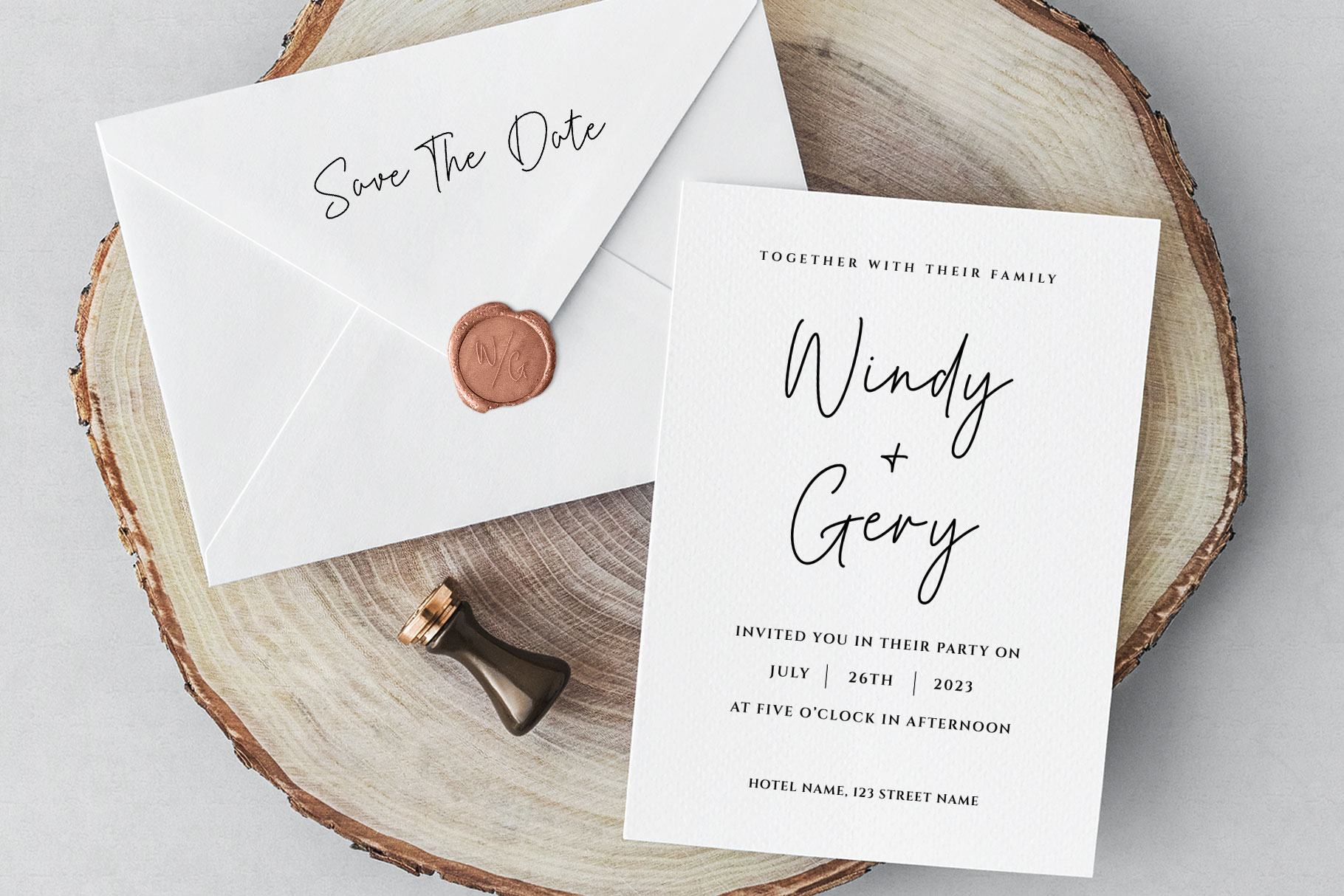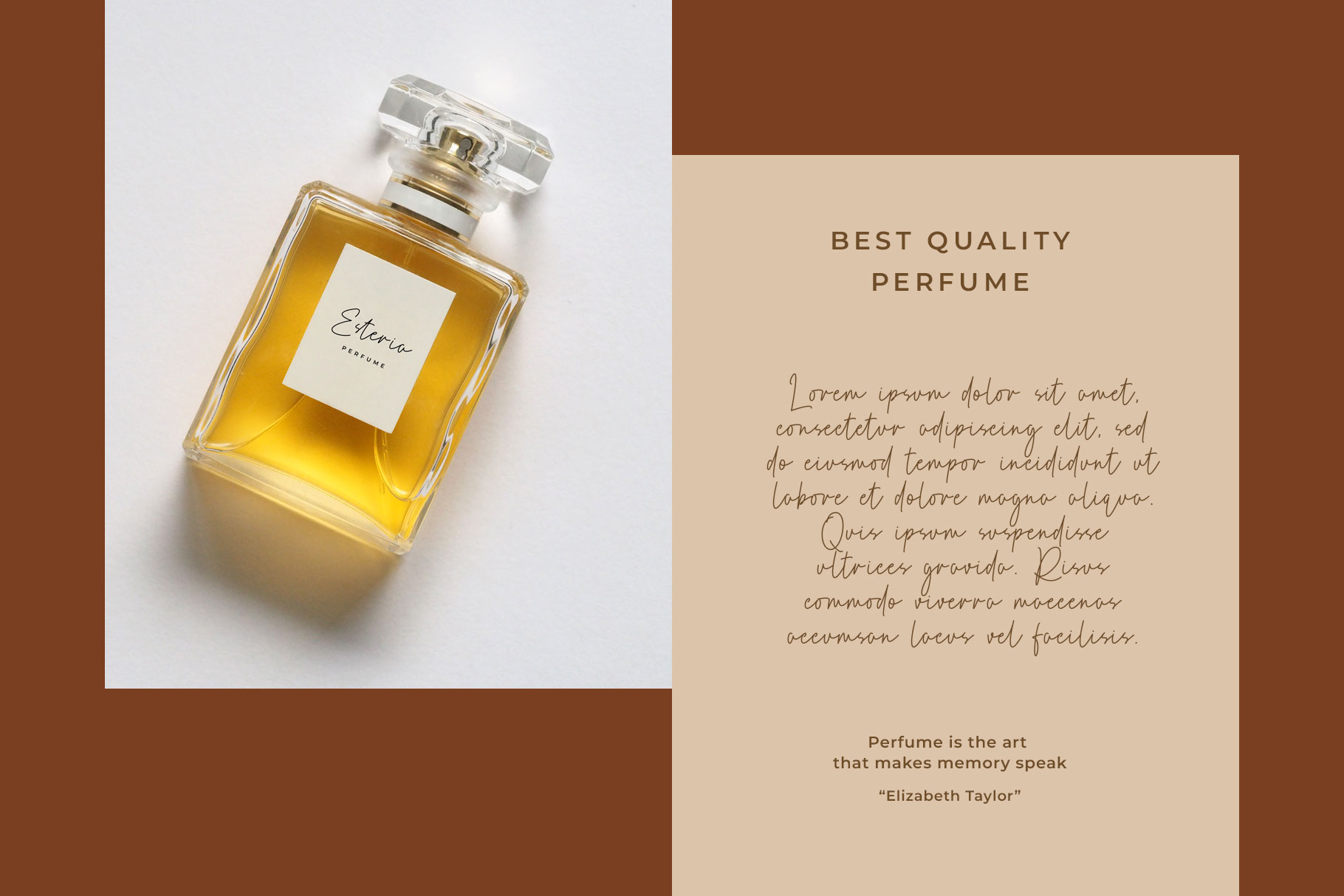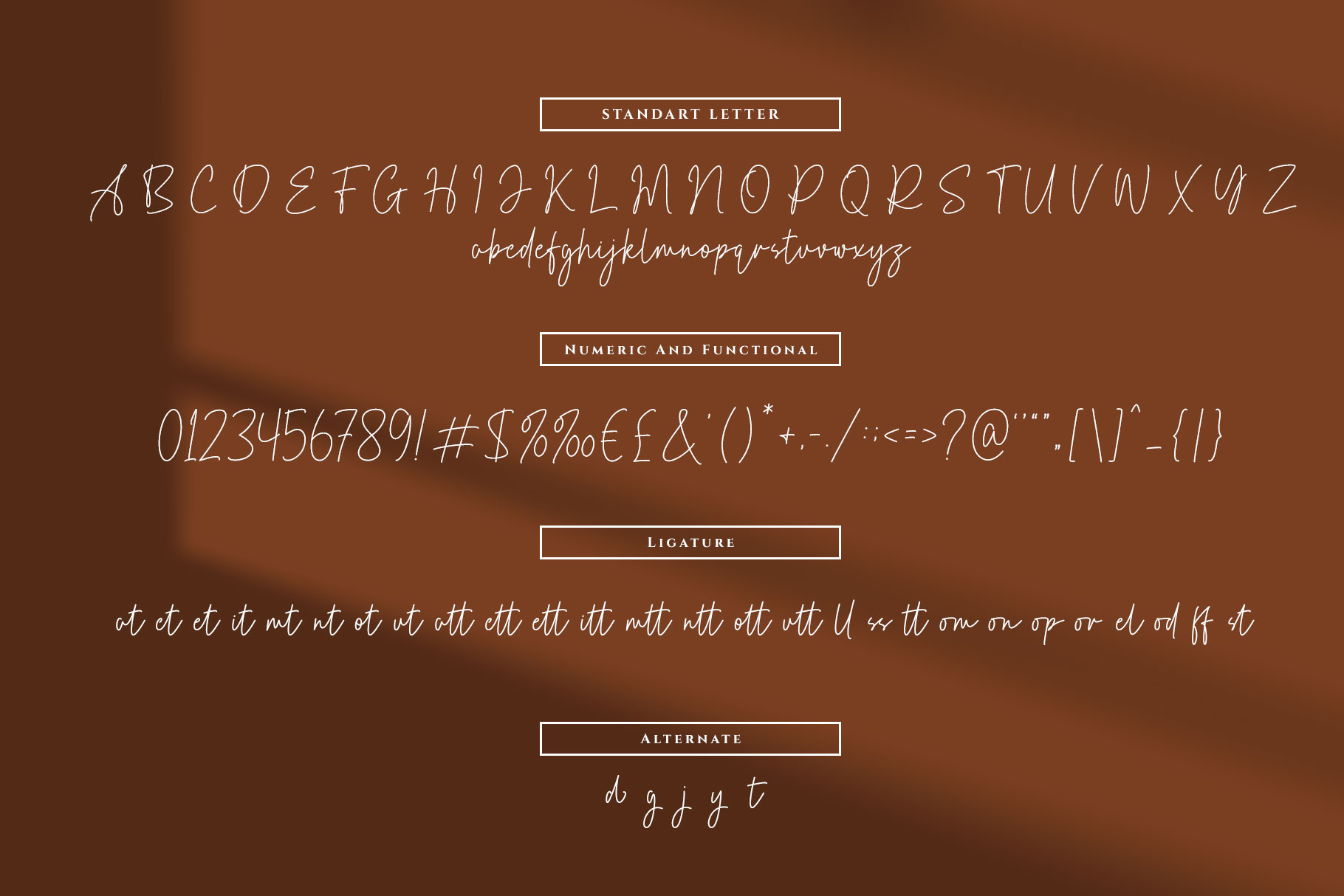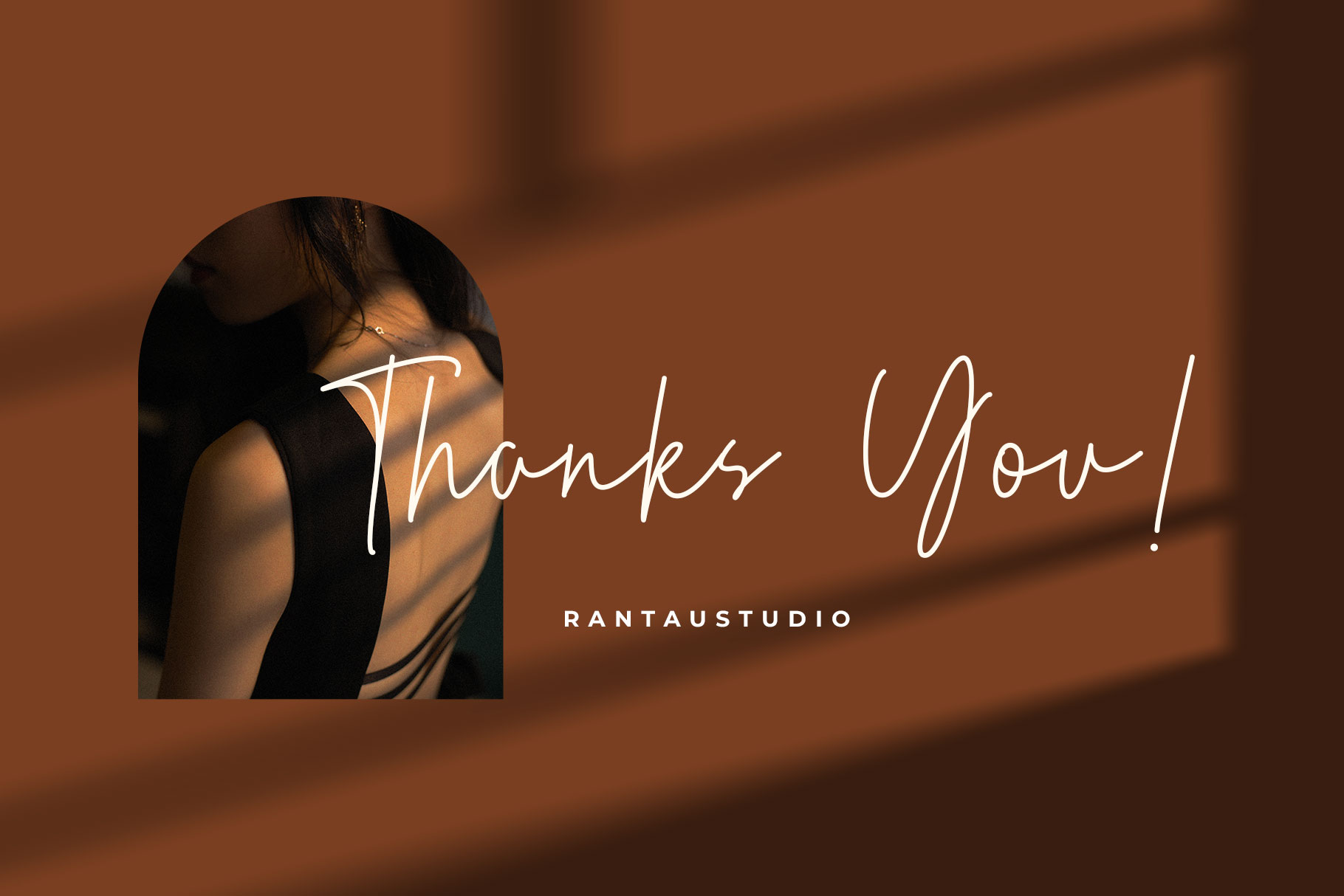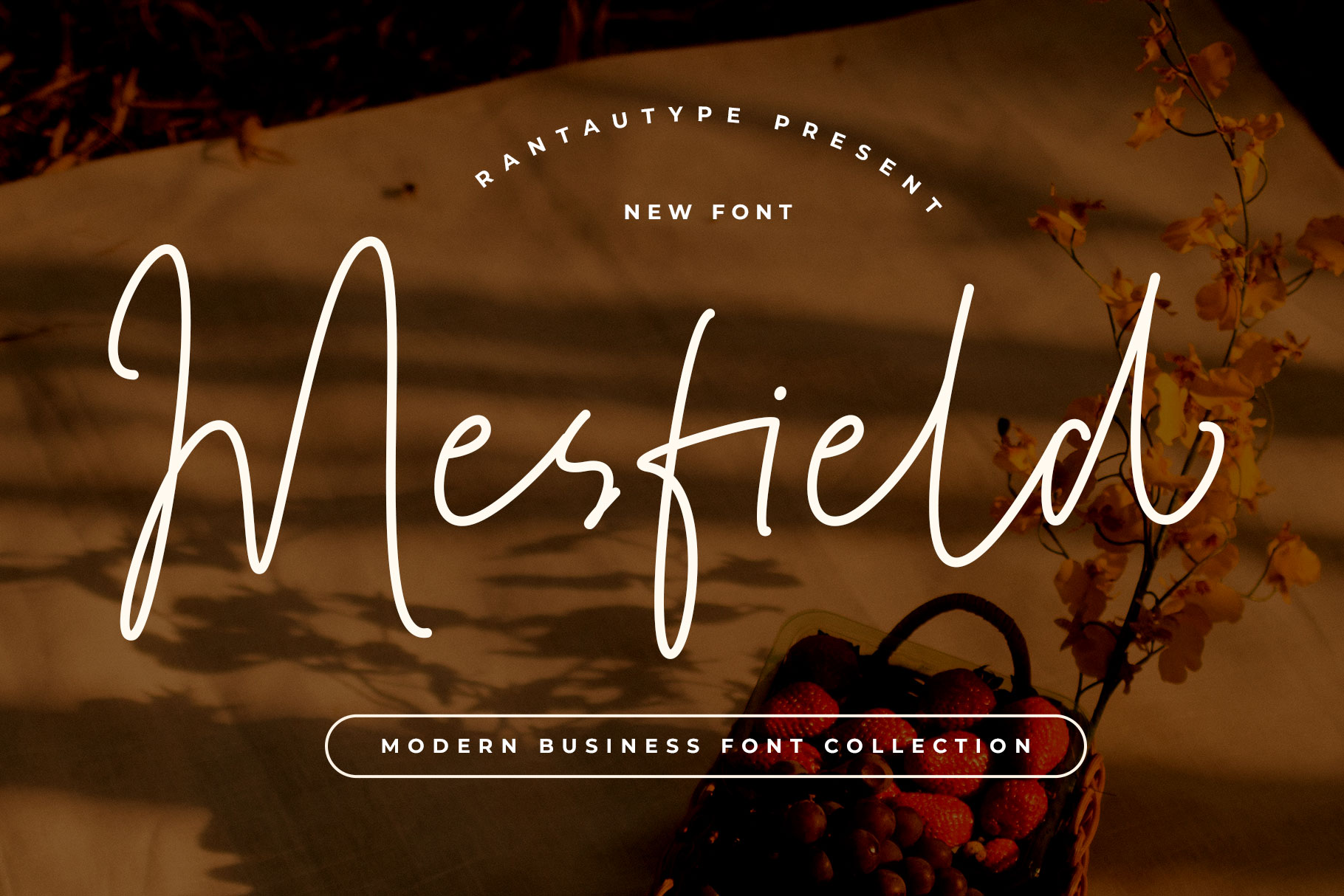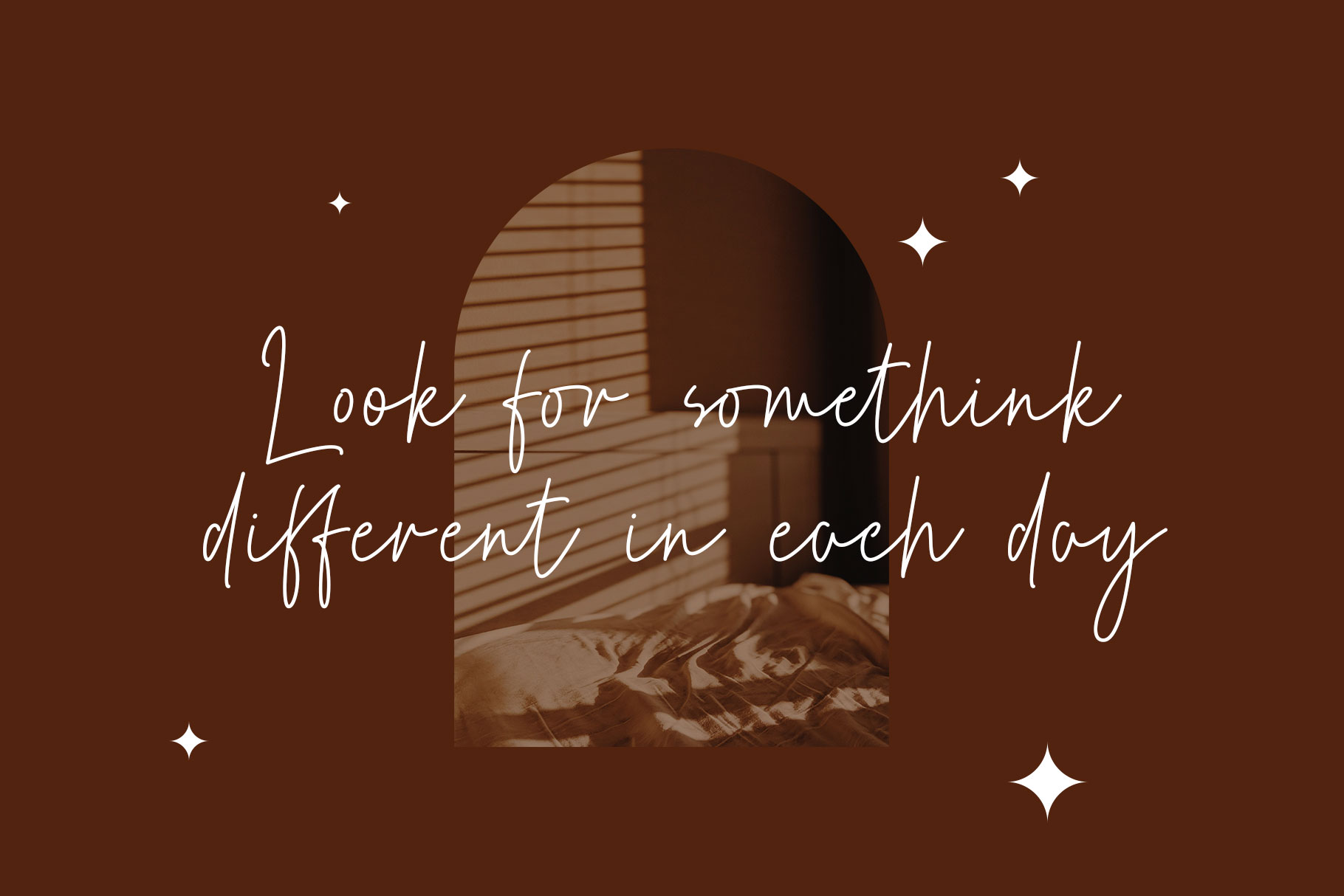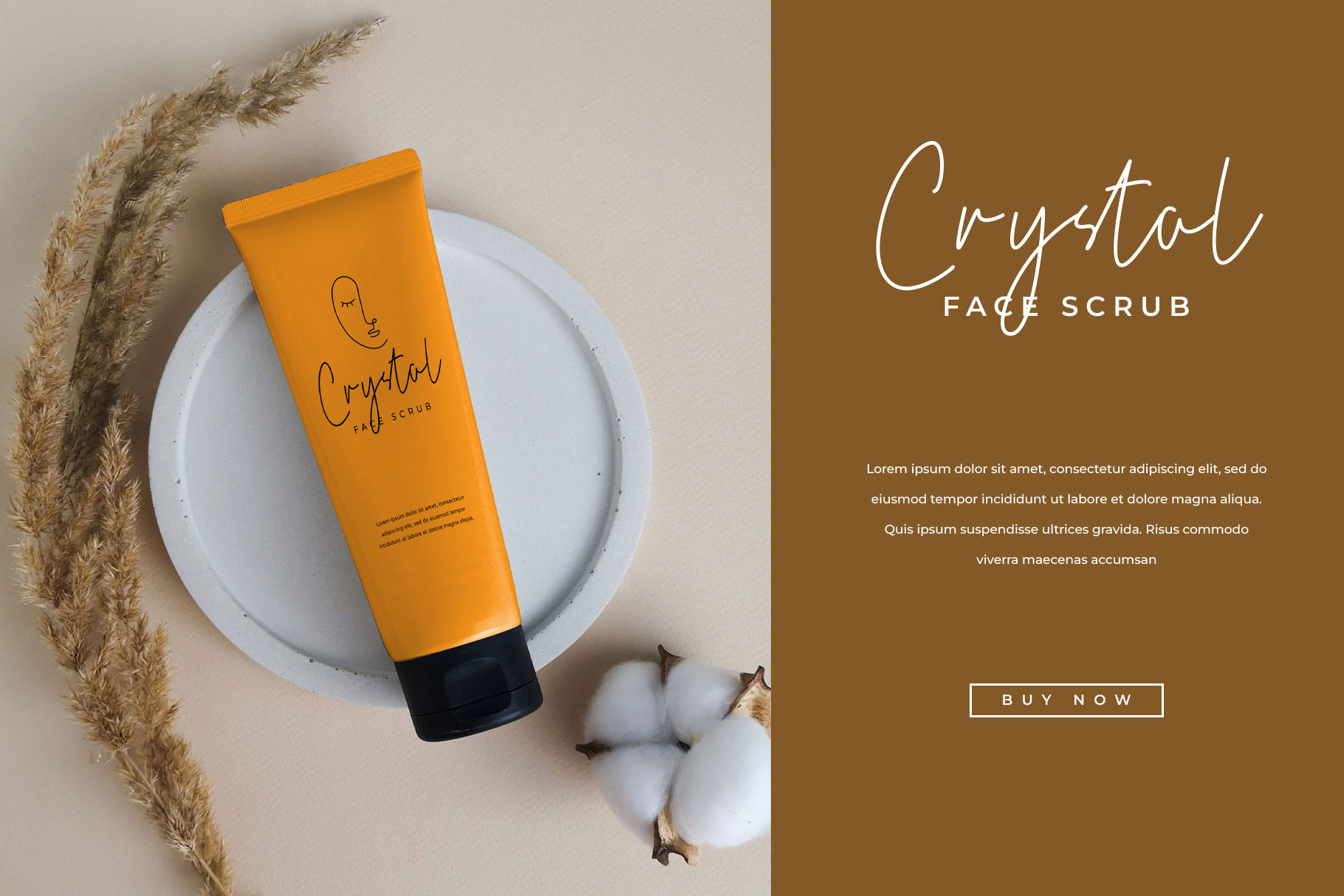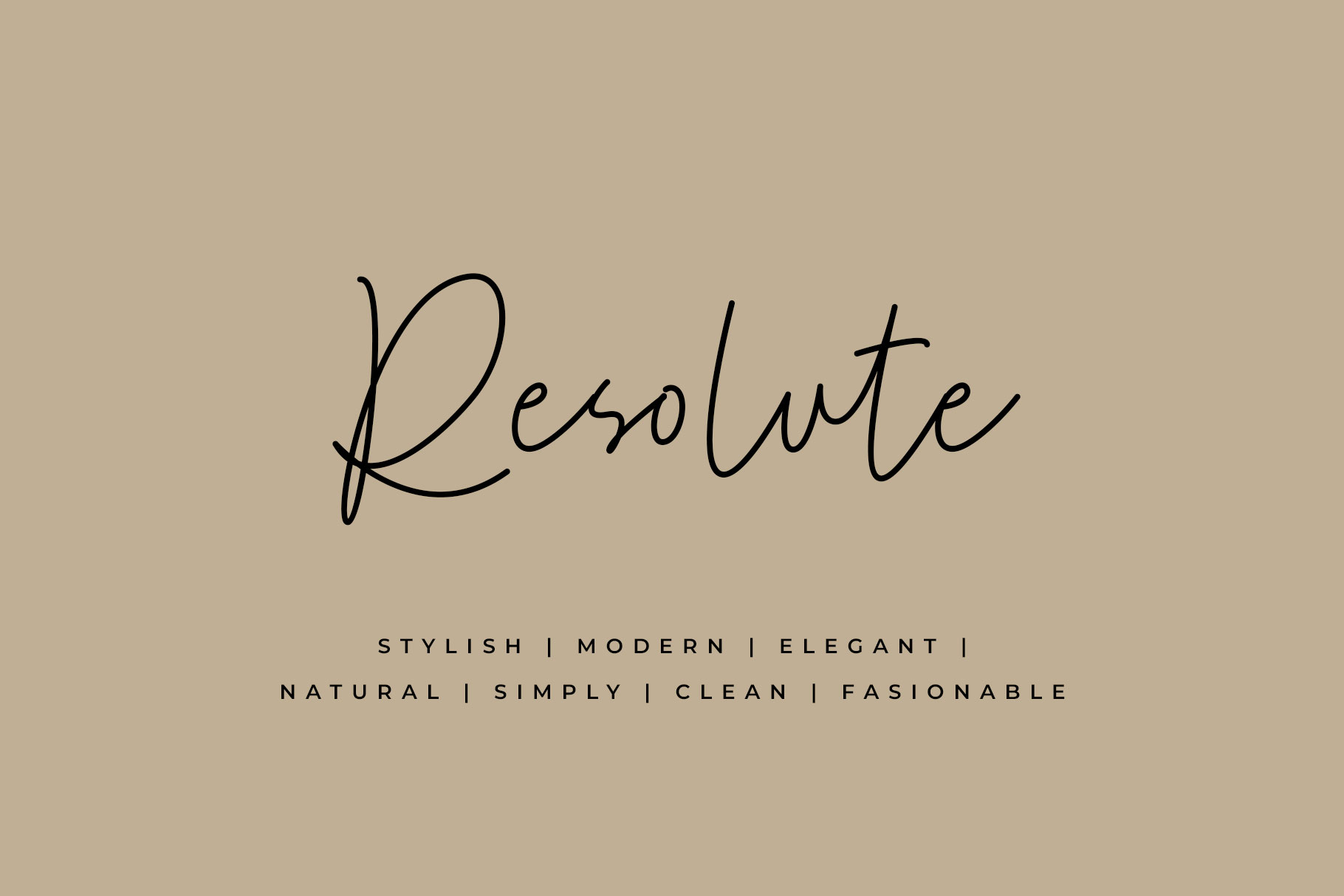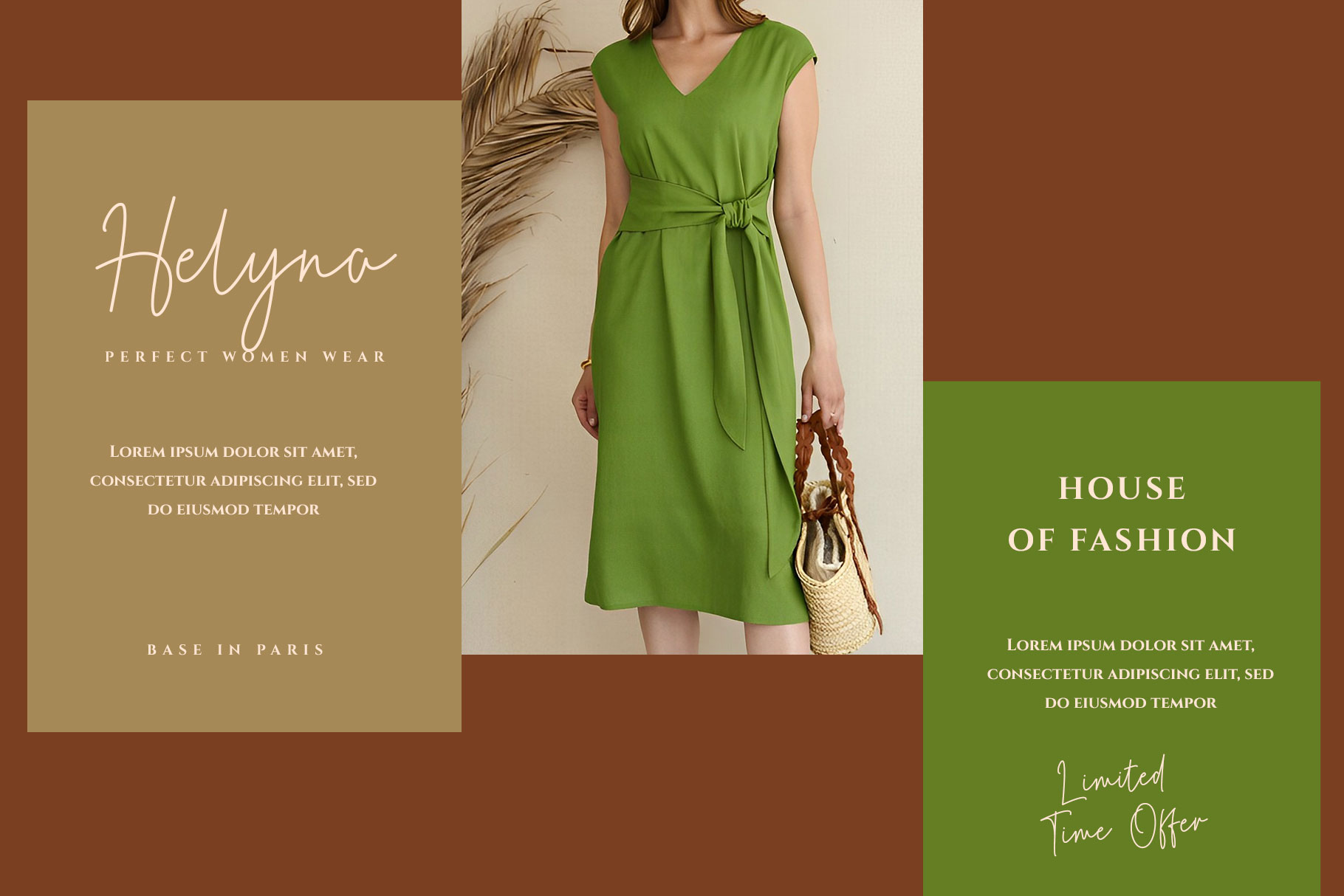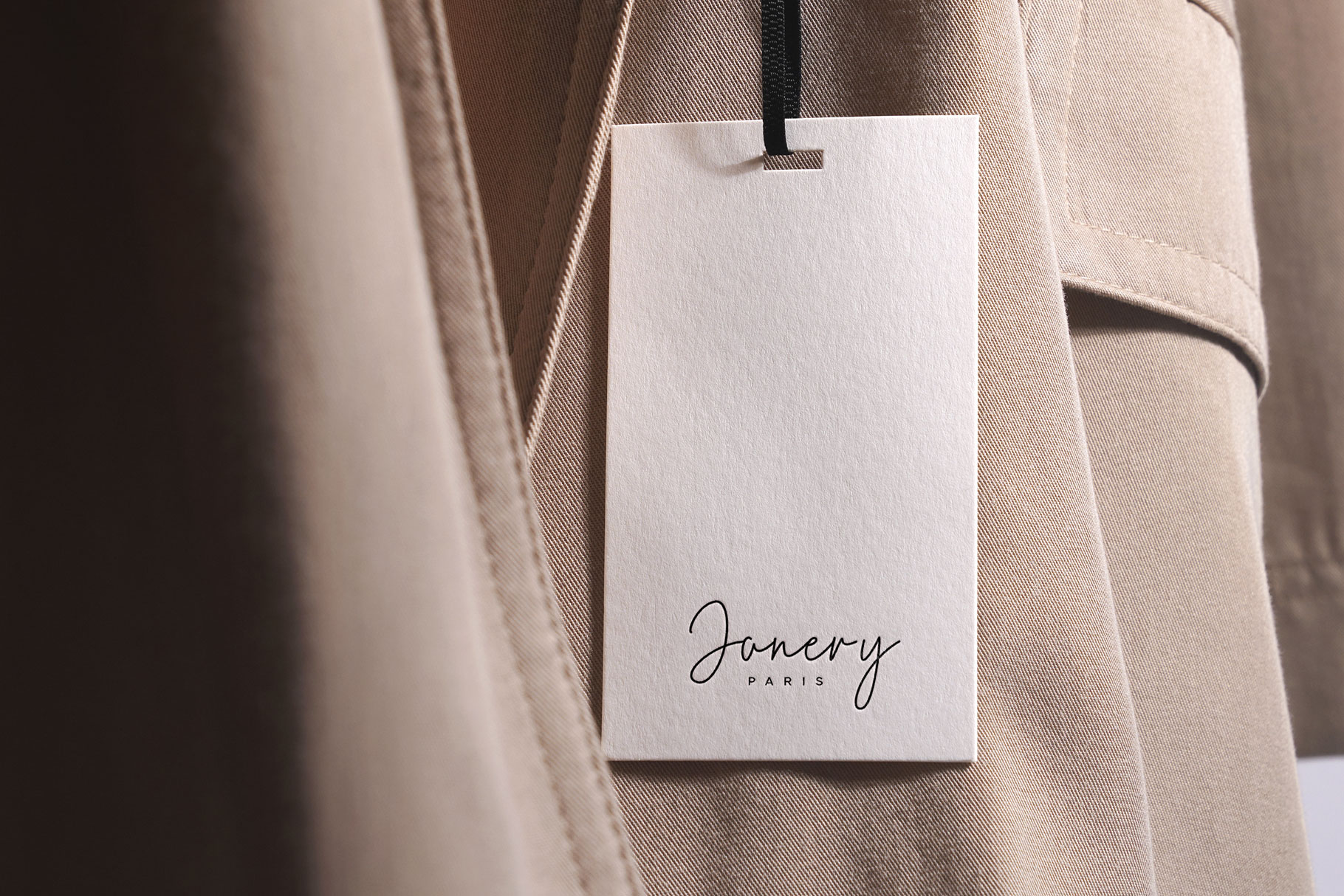
Mesfield Handwritten Font
Mesfield is modern business font which can be interpreted professional . We keep this font looks modern, feminine, stylish, readable, catchy and easy to use. Mesfield come with ligature, alternate and multilingual accent support.
Mesfield is a beautiful choice for any creative endeavor, chic, lifestyle design such as logos, title, watermark on photography, cover, branding, display and magazine, wedding event, quotes, album cover, business card, corporate, business project and many other design project. Mesfield here to make your work stand out!!